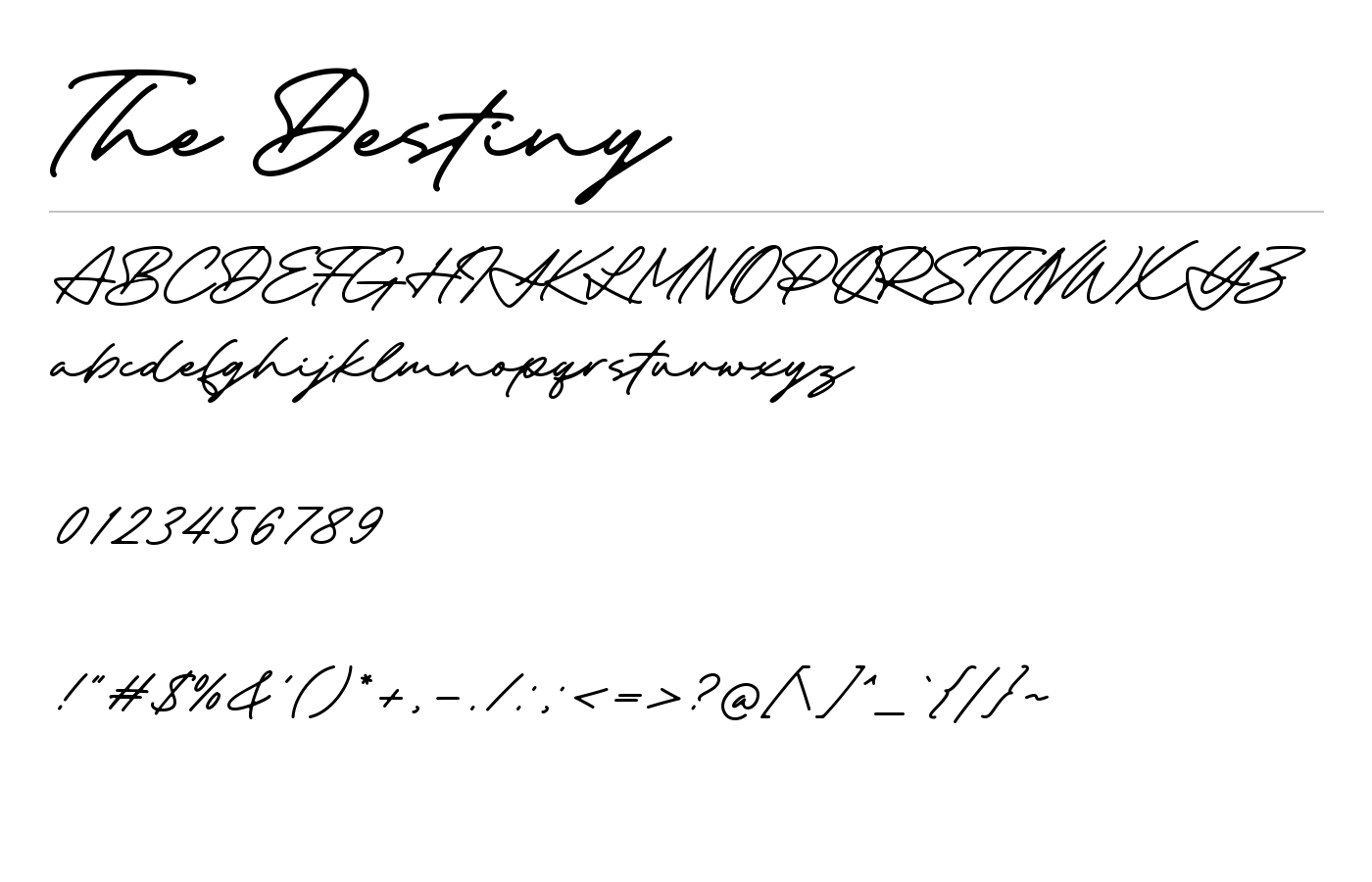
The Destiny Font is a delicate and elegant script typeface that features flowing, hand-drawn letterforms with a natural and personal touch. Its light weight and slender strokes give it an airy, sophisticated feel, making it ideal for invitations, branding, and stylish headlines where a refined, intimate atmosphere is desired. This font’s graceful curves and casual yet polished style suit projects seeking a modern, handwritten charm with a romantic or creative flair.
The Destiny Font
About The Destiny Font
| Font family | The Destiny Font |
| Release date | 2022-11-29 |
| Designer | Dwi Ahidian |